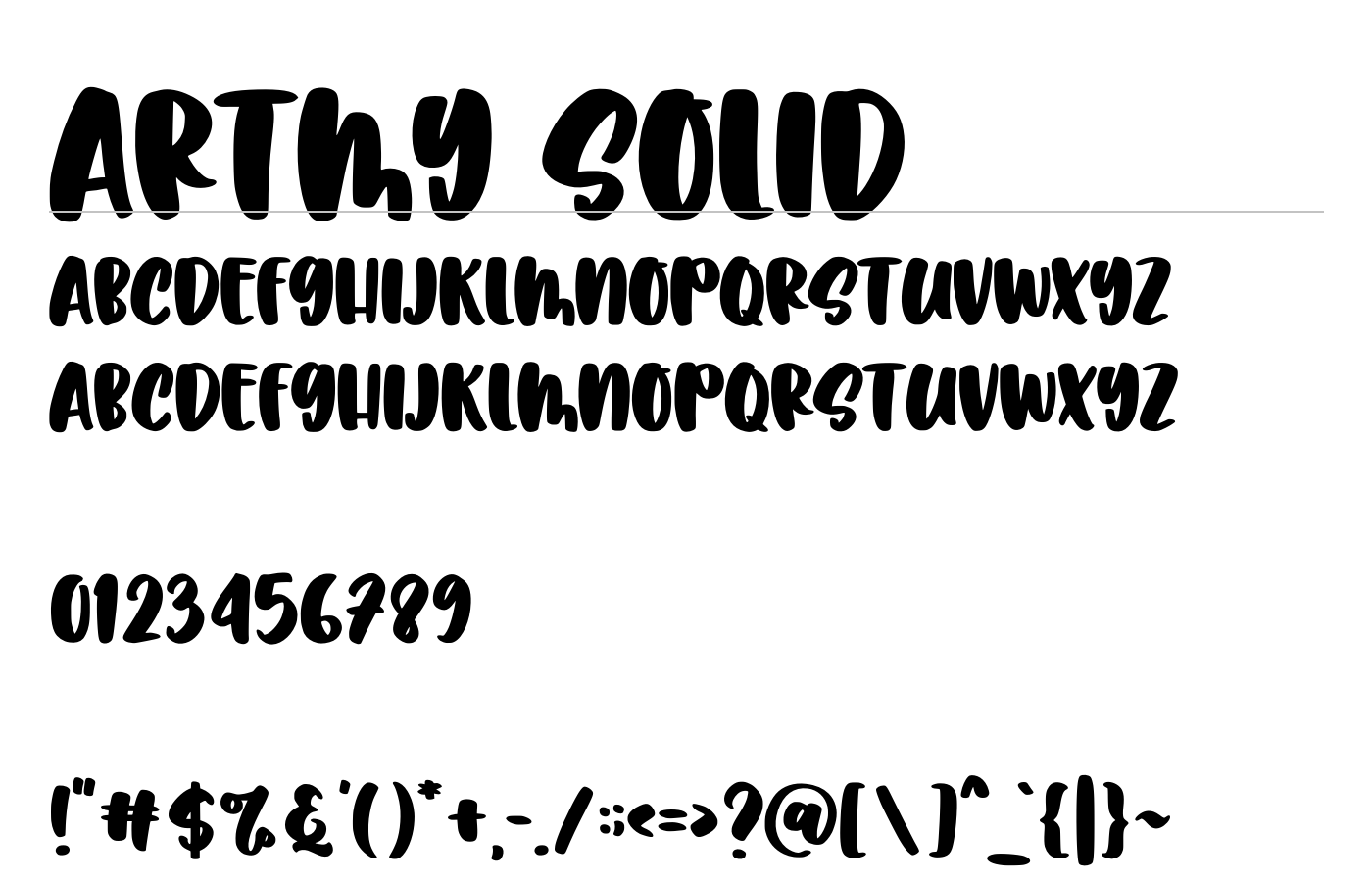
Artmy Solid is a bold, playful handwritten sans serif font with a solid, chunky appearance and rounded, organic strokes that give it a friendly, informal feel. Featuring uniform weight and lively letterforms with ample spacing, it works well for creative branding, casual headlines, and fun packaging where a warm, approachable style is desired. This font’s energetic personality makes it a great choice for projects that want to convey charm and originality without sacrificing readability.
Artmy Solid Font